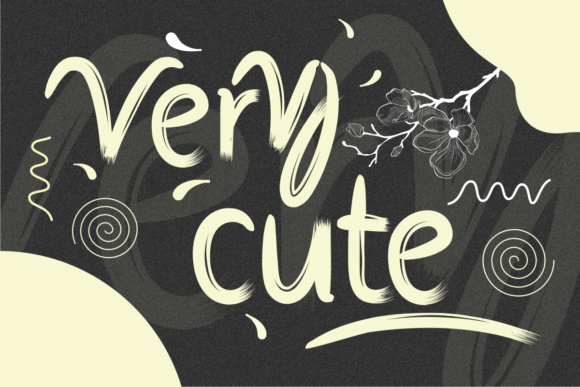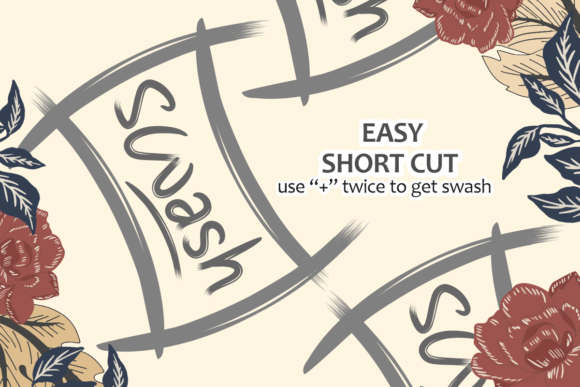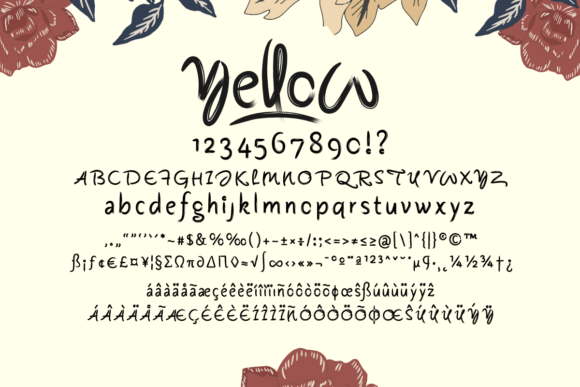
Yellow Font
About Yellow Font
Yellow is a sweet, thick lettered handwritten font. Fall in love with its incredibly versatile style and use it to create spectacular designs!